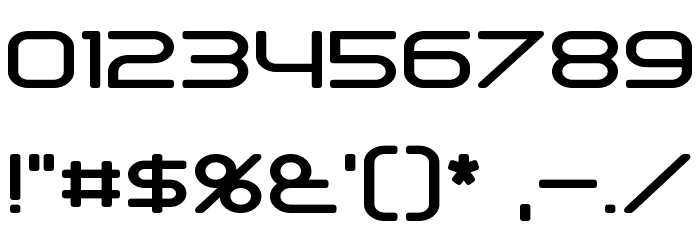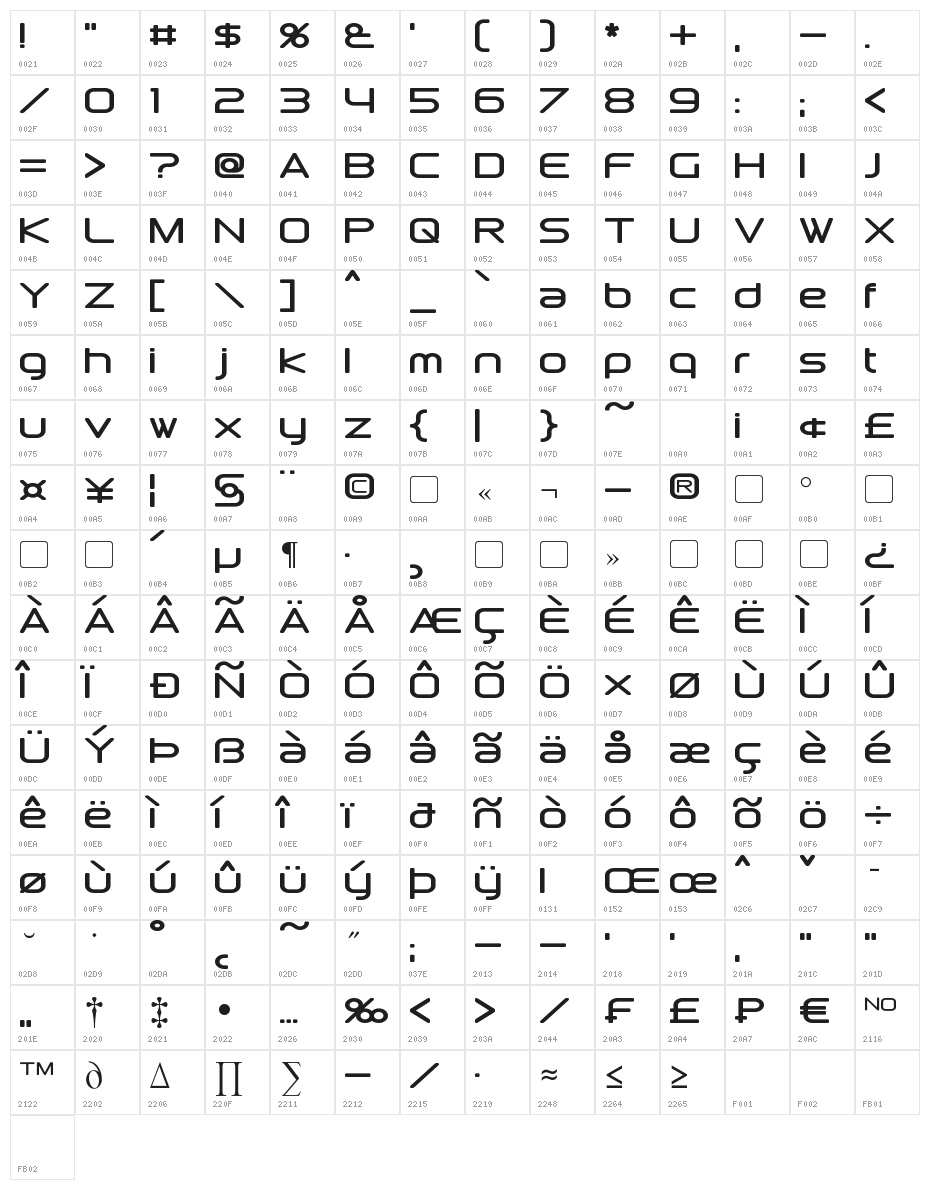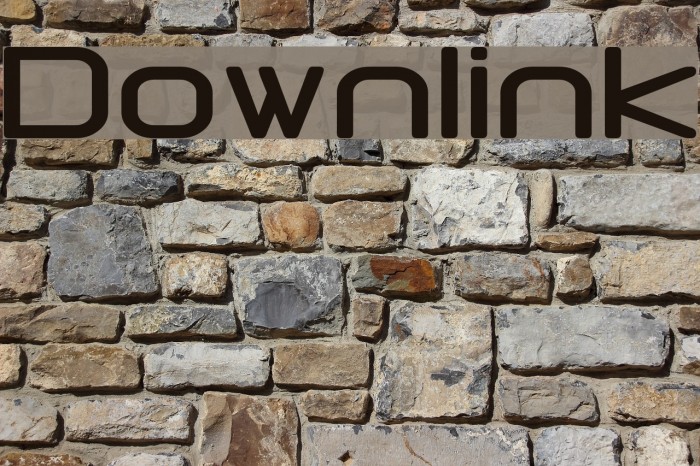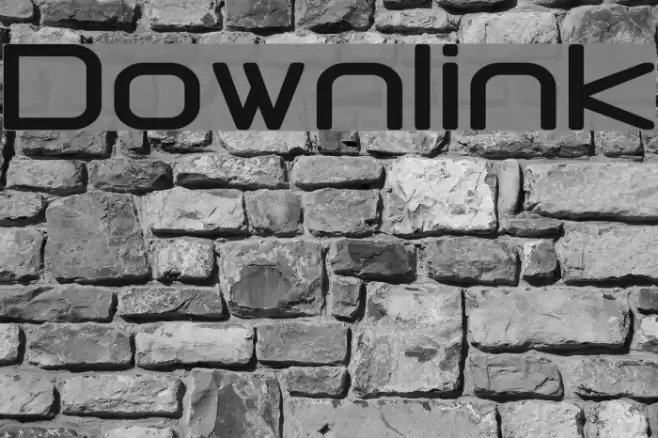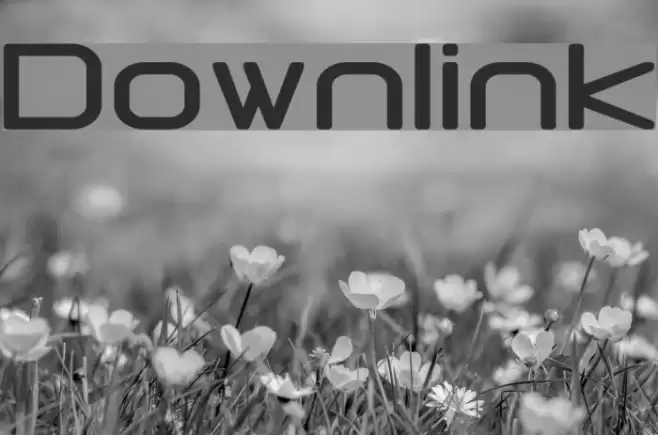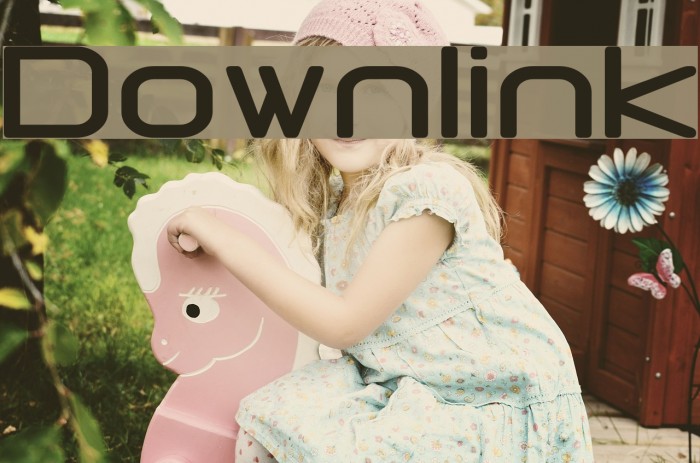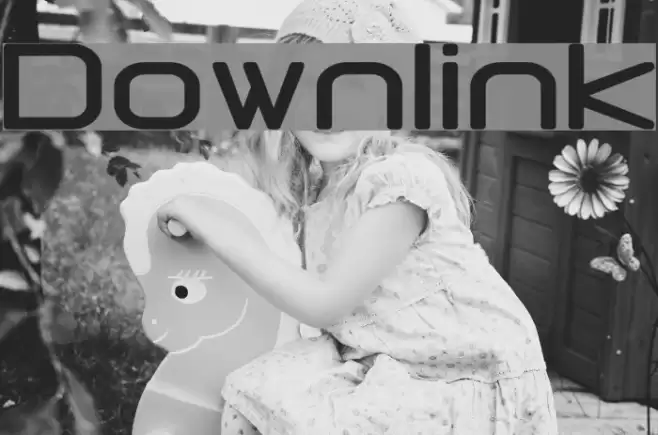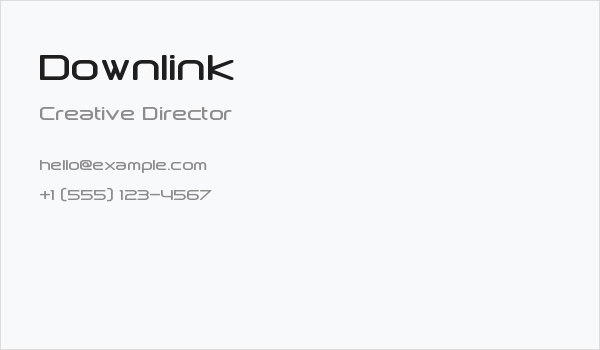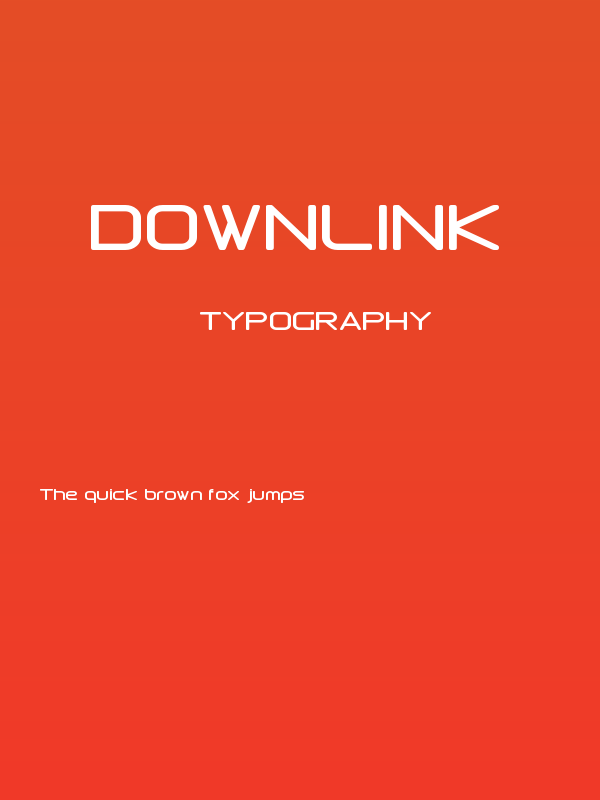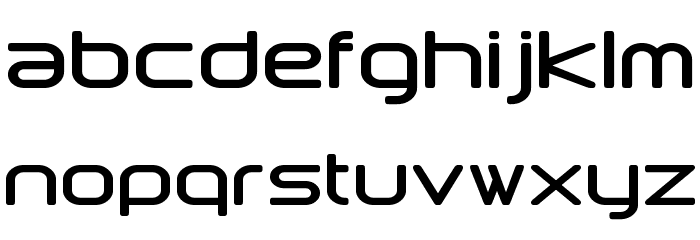
This font features a modern, geometric design with rounded edges and a clean, streamlined appearance. The characters are uniform in width, giving it a monospaced feel, although it is not strictly monospaced. The uppercase letters are bold and assertive, while the lowercase letters maintain a consistent height, contributing to its readability. The numerals are distinct and align well with the overall style, making them suitable for digital displays. Special characters are well-integrated, maintaining the font's cohesive look. The overall design is futuristic and tech-inspired, making it ideal for projects that require a contemporary and sleek aesthetic.
Use CaseHeadlines, Logos, Digital displays
Proposed ProjectsIdeal for technology branding, digital interfaces, modern advertising, and futuristic design projects.